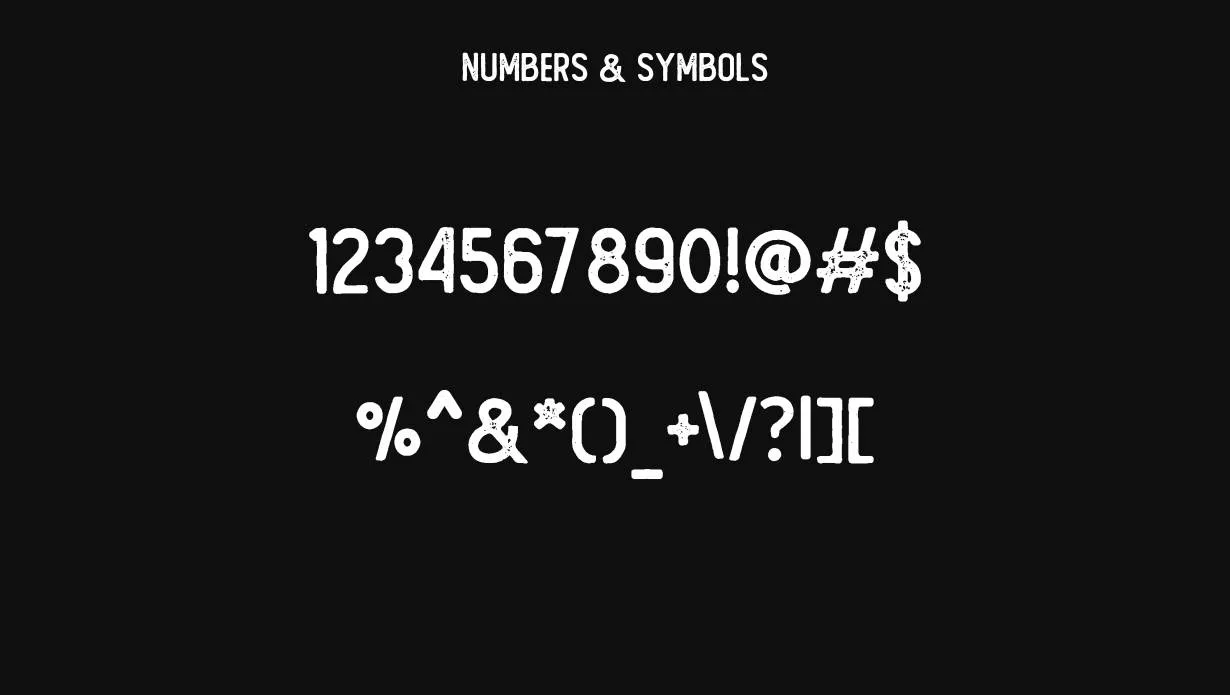
The Foregen Font is part of the fancy font group made by Vultype Co. With its retro, readable, and clear texture, it can add a vintage and legible style to any display. Dive into the world of unique fonts with Foregen!
| Name | The Foregen Font |
| Designer | Vultype Co |